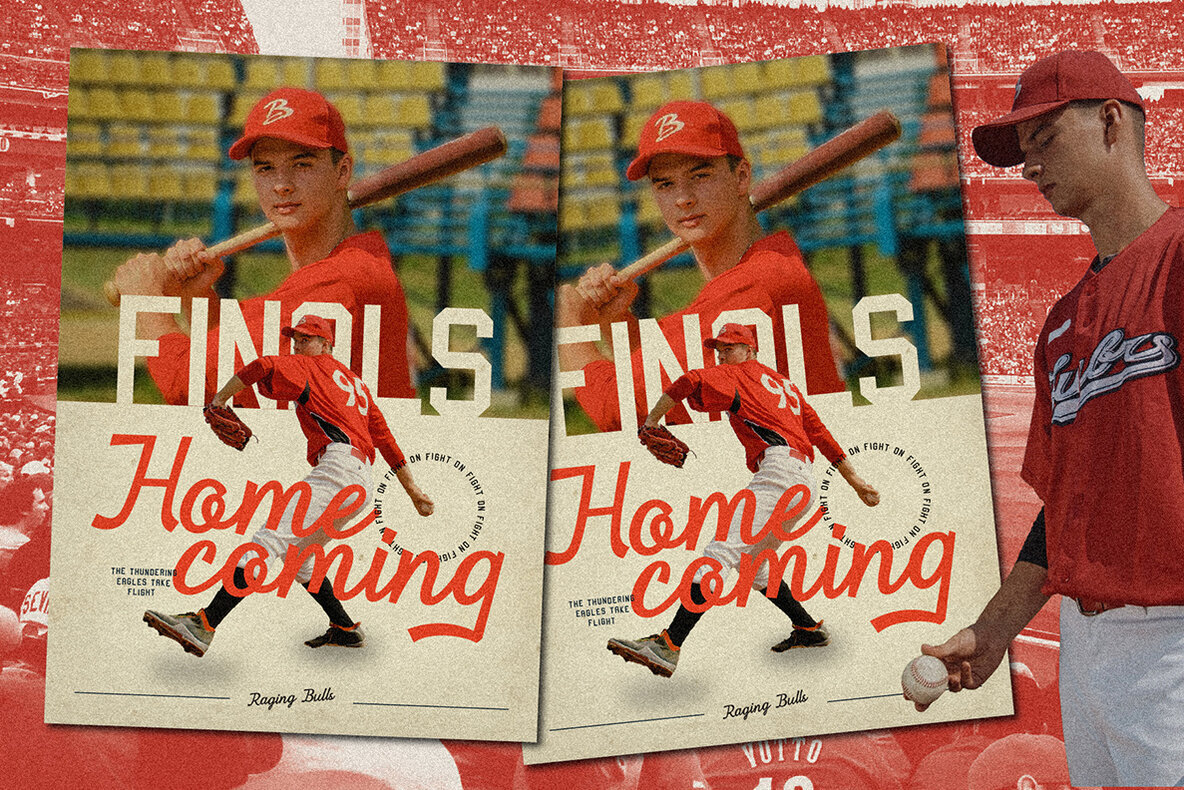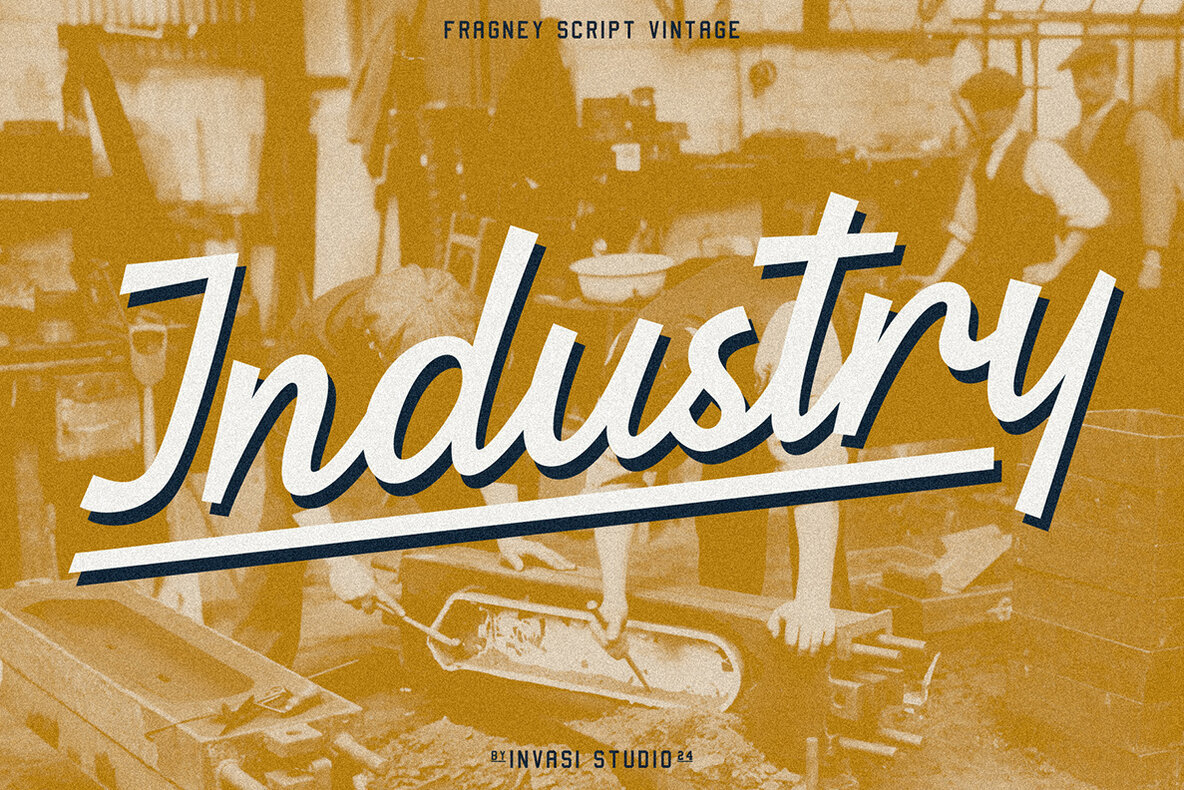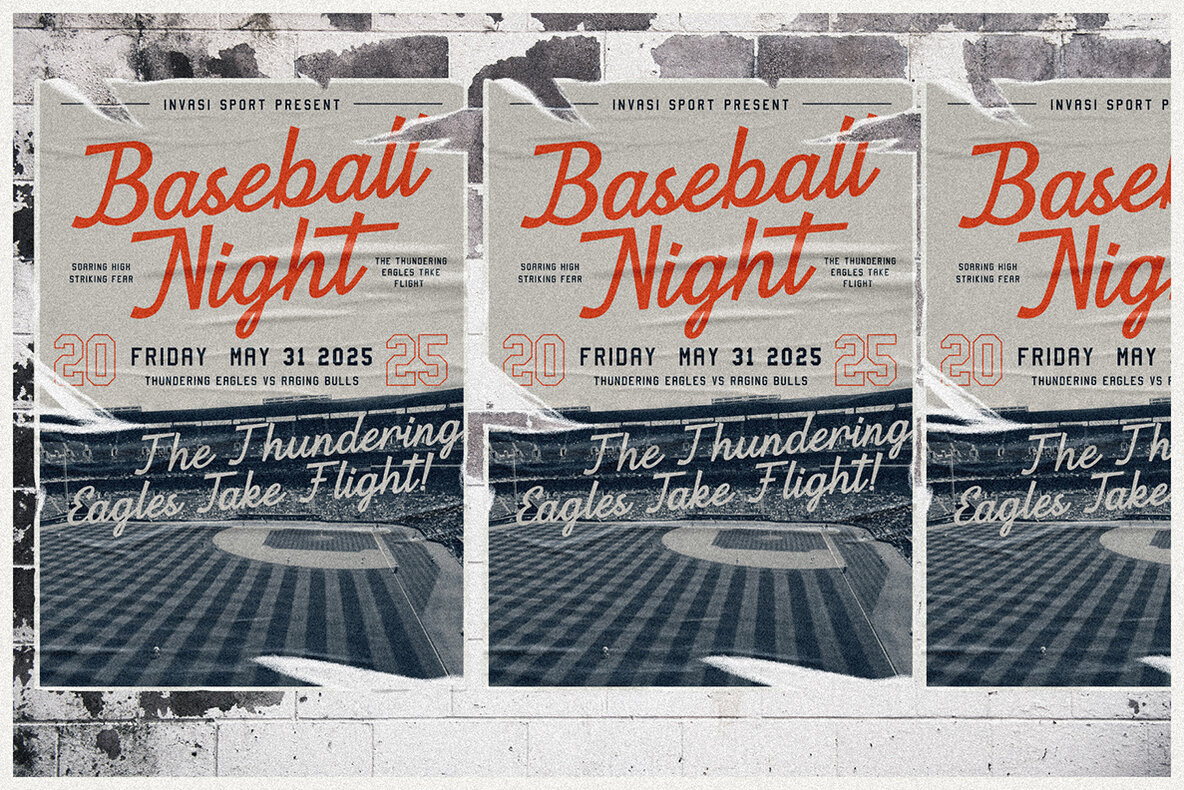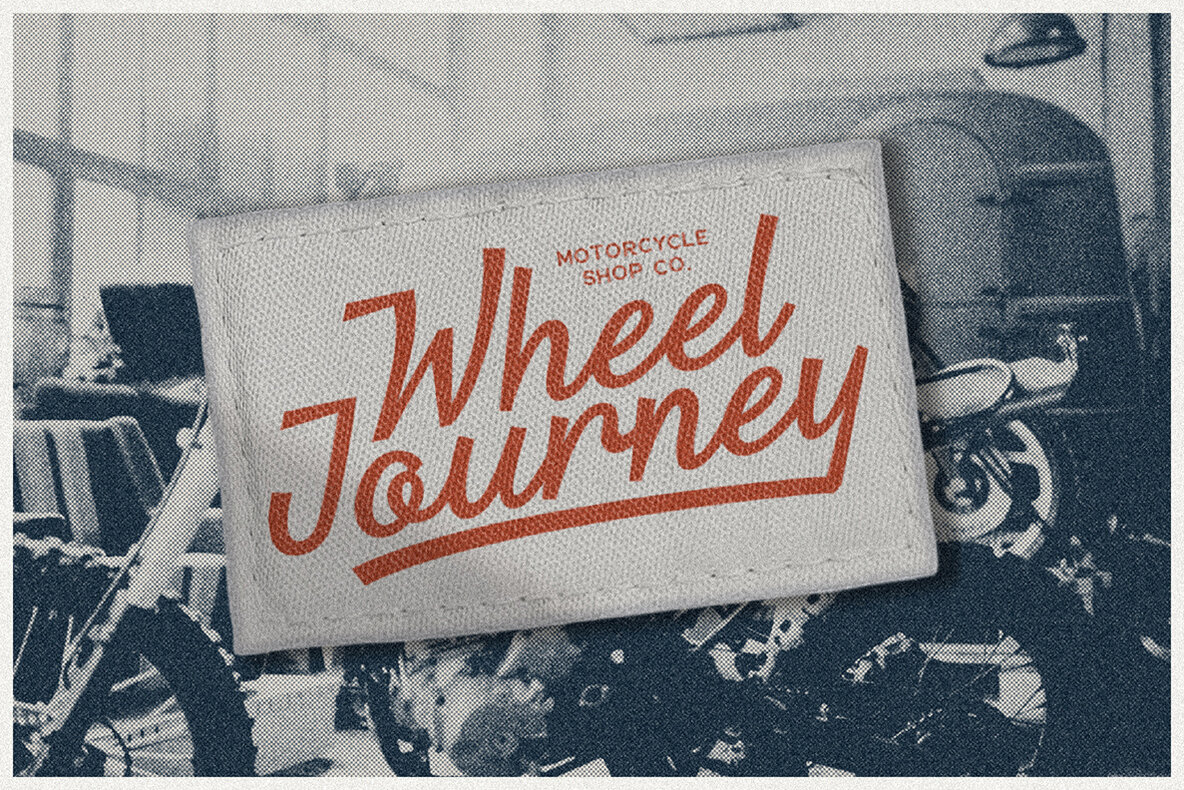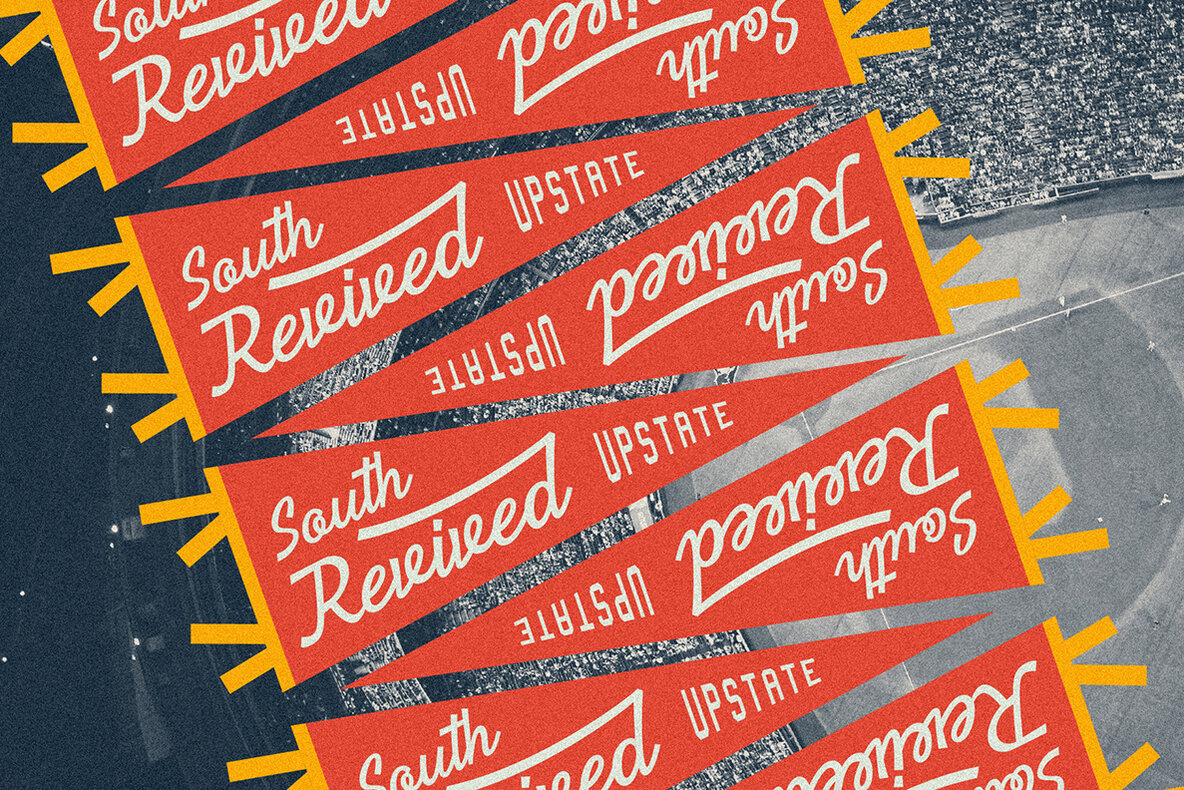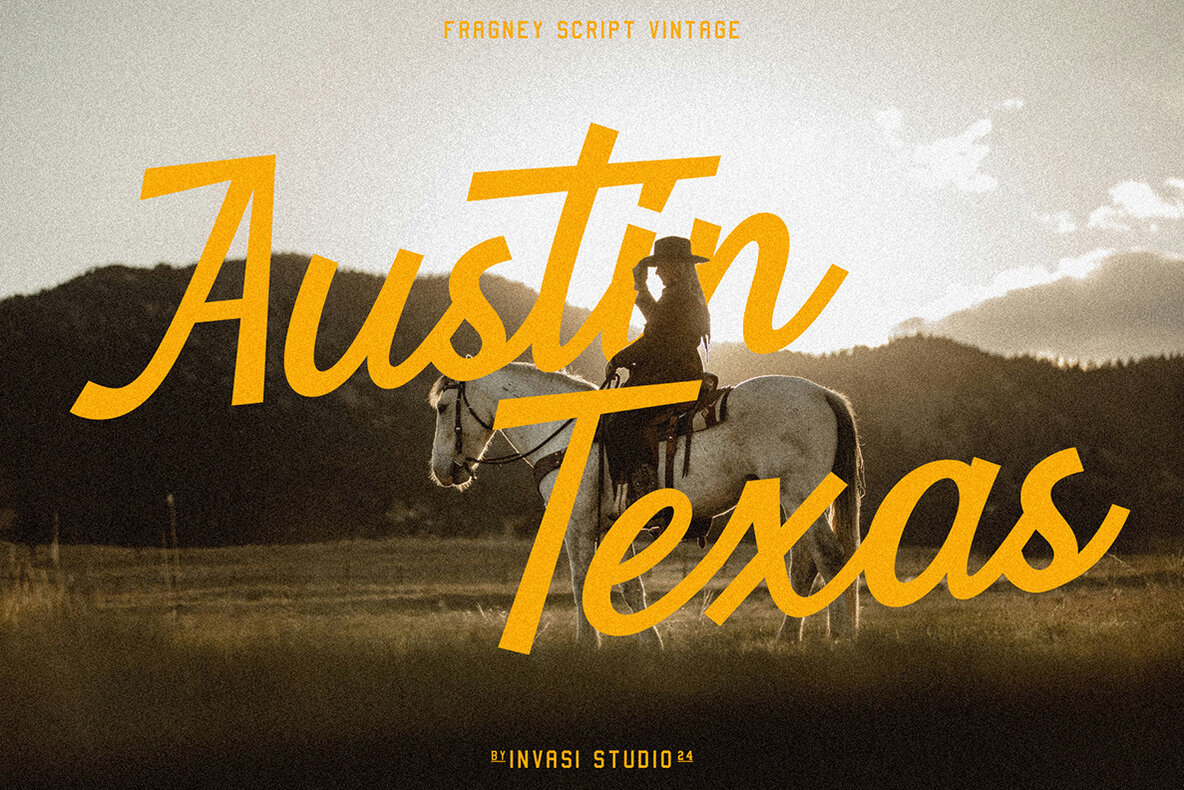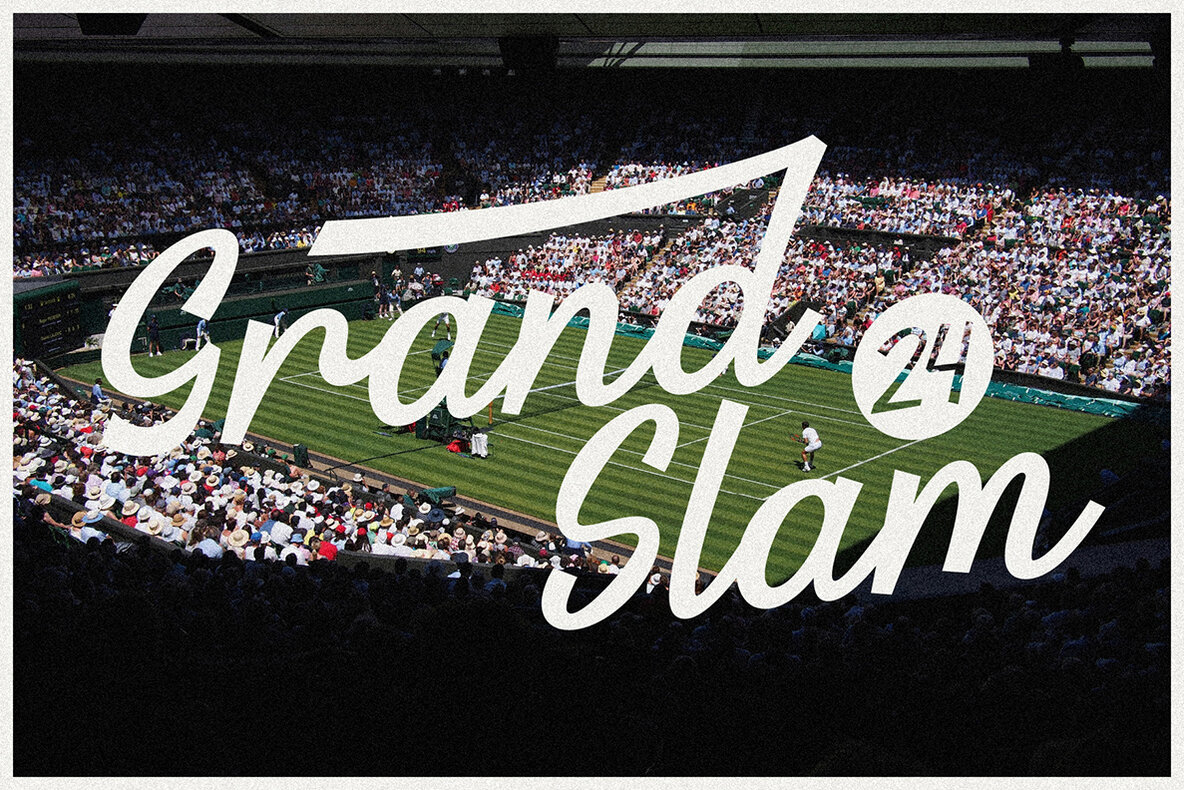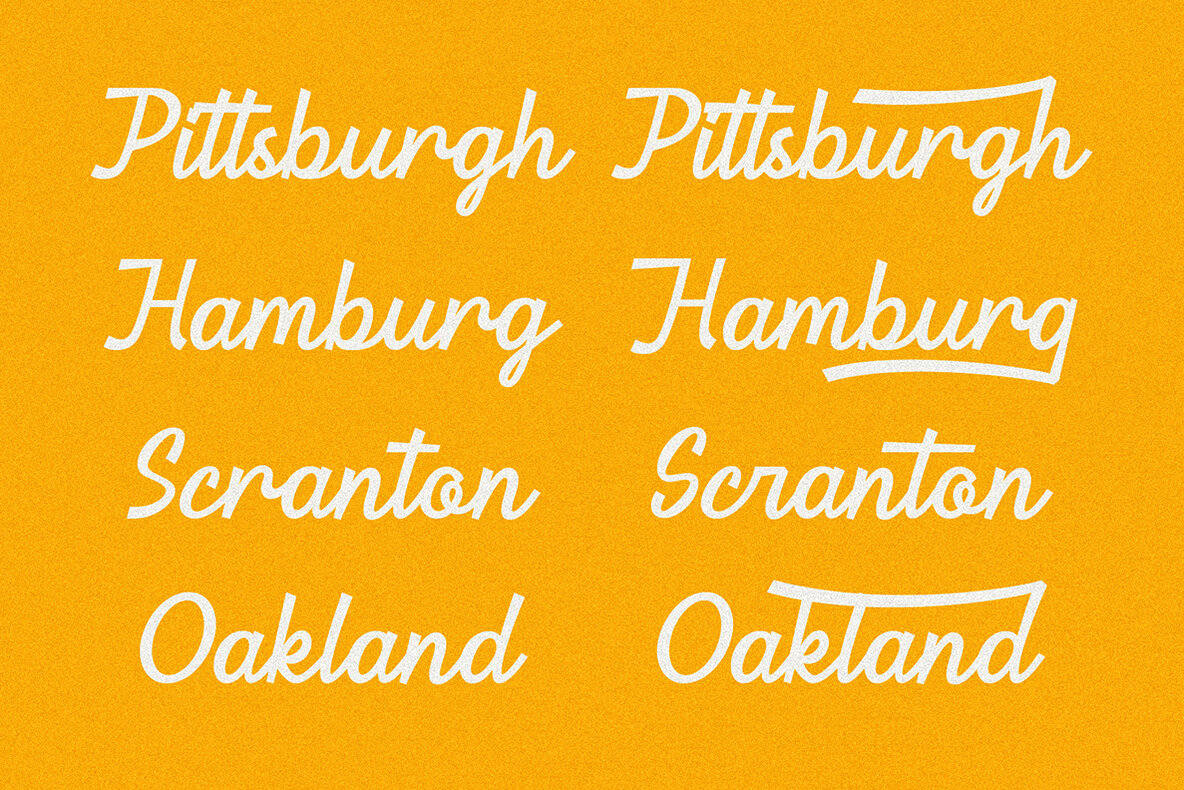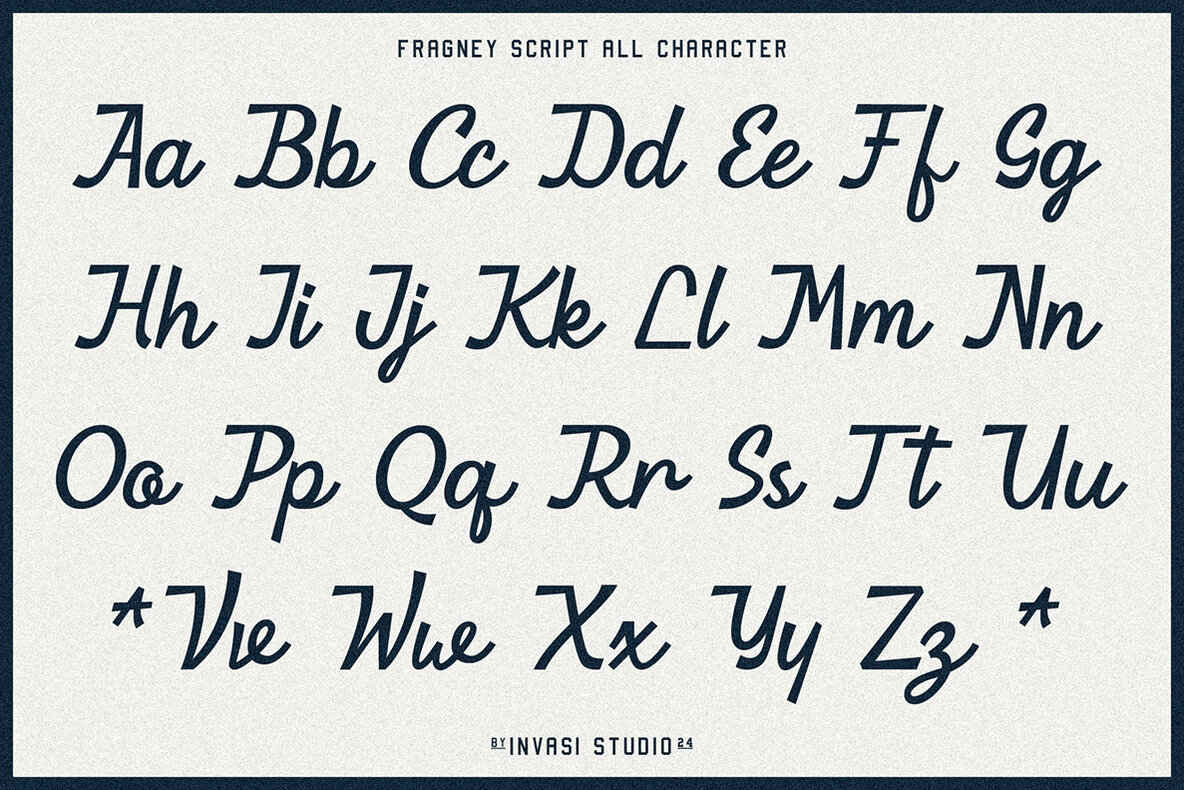
Fragney Font
Fragney Regular
Drawing inspiration from the classic allure of vintage sportswear and the timeless spirit of baseball, Fragney emerges as a vintage script font imbued with an athletic essence. Its design nods to the past while carrying an enduring athletic feel, making it a standout choice for a variety of creative projects. Fragney comes equipped with an ending swash feature, allowing for a customized feel that adds a personal touch to every design. Whether it's bringing a nostalgic vibe to logos, adding character to social media content, or rallying behind your favorite sports team, Fragney is versatile enough to capture the essence of your message with a vintage flair.